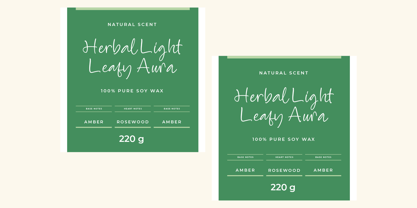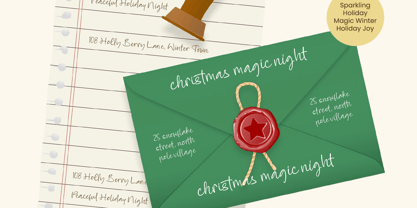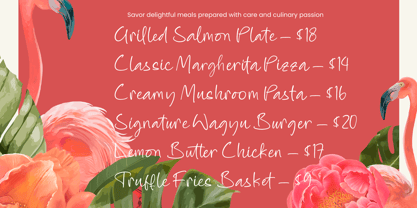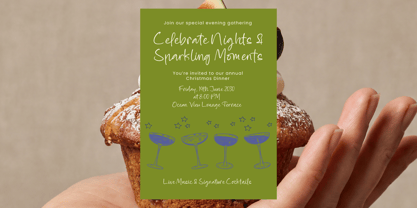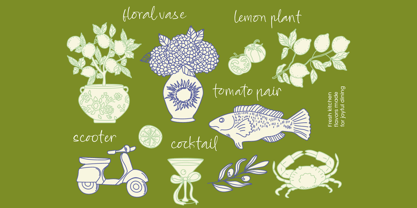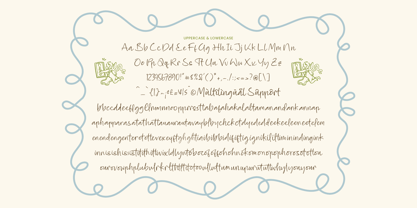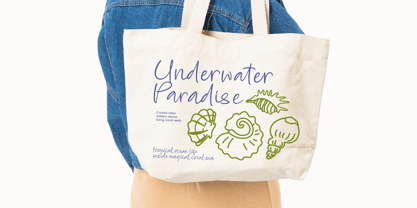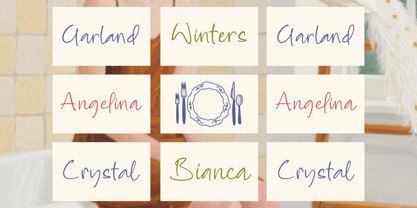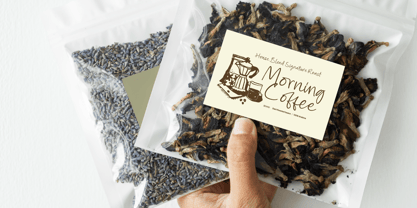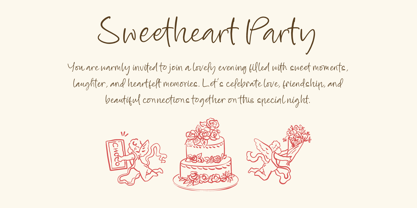
Buttery Delight
by Stylishtype Studio
The Buttery Delight Font Family was designed by Heru Utama Putra and published by Stylishtype Studio. Buttery Delight contains 2 styles and family package options. More about this family
Buttery Delight – Beautiful Handwritten Script Font Buttery Delight is a beautiful handwritten script font designed with smooth flowing strokes and elegant natural curves. Inspired by modern calligraphy and organic handwriting, this font brings a soft, charming, and stylish look to contemporary typography. The letterforms feature graceful lines and fluid connections that create a natural handwritten rhythm. Its elegant structure makes the font ideal for designs that require warmth, creativity, and refined visual character. Buttery Delight includes a large collection of ligatures that enhance the natural flow of the lettering, allowing designers to build unique and expressive typographic compositions. The font works beautifully for elegant headlines, stylish logos, and creative branding layouts. With its delicate handwritten appearance and smooth script style, Buttery Delight adds a warm and artistic touch to modern design projects.